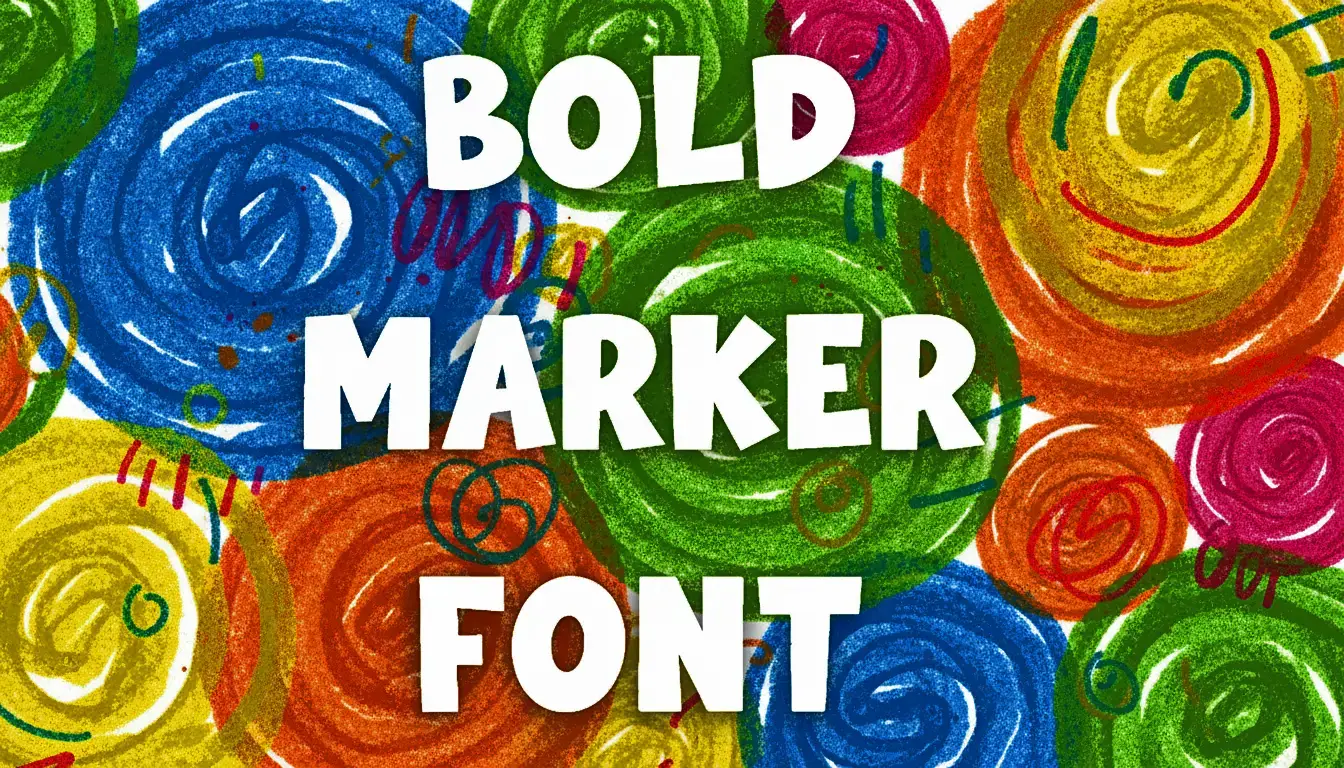
Bold Marker Font
Bold Marker
Bold Marker is a fancy font designed by Timur Type Studio. Bold and full of character, it's built to stand out rather than blend in. You can download it for free and test it with your own words in the preview above.
Bold Marker covers the full alphabet in upper and lowercase, plus all ten numbers, so you can set names, dates and prices without switching fonts. Everyday marks like &, !, ? and @ are there too. There are no accented letters like é or ñ, so it's best kept to English text.
Designers usually reach for fonts like Bold Marker when they're making posters, logos and eye-catching headlines. Use it for one standout word or headline and let simpler fonts handle the rest.
No. Bold Marker has no accented letters such as é, ñ or ü, so it's best for English text.